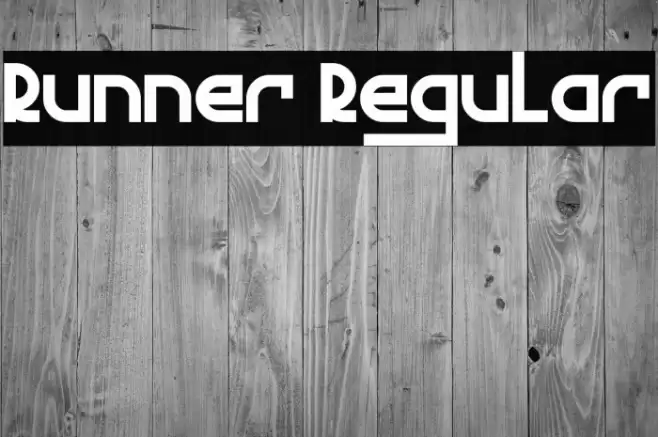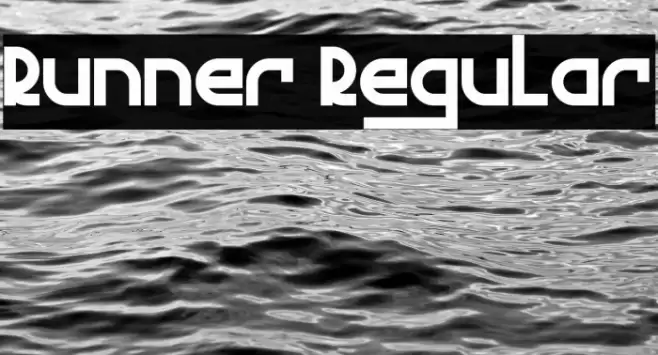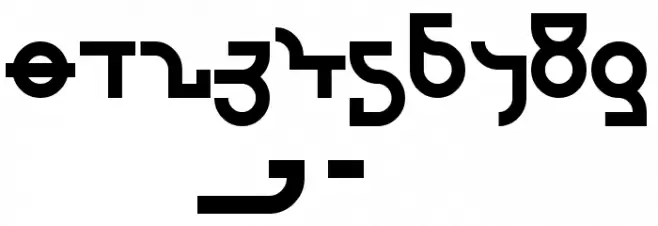
Runner Regular Font
Runner Regular Description
This font features a bold and geometric design with a futuristic flair. The characters are constructed with a combination of straight lines and curves, creating a unique and modern appearance. The uppercase letters are particularly striking, with a strong presence and distinct shapes. The lowercase letters maintain the geometric theme, offering a cohesive look across the typeface. The numerals and special characters are equally bold, ensuring consistency throughout. This font's style is ideal for projects that require a modern and eye-catching aesthetic.
A bold, geometric font with a futuristic and modern design from Regular fonts.
- Proposed Projects: Ideal for branding, logos, posters, and digital media that require a modern and bold aesthetic.